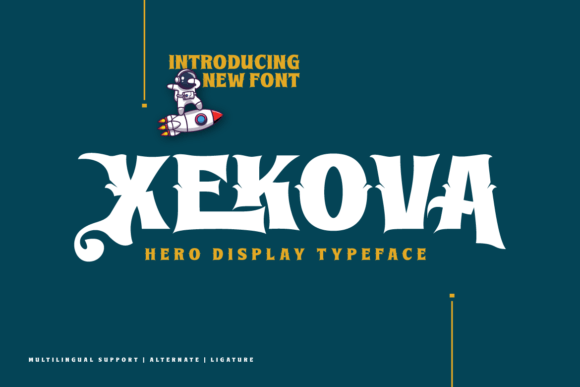
Introducing Xekova Font, the ultimate choice for designers and creatives who want to make a bold statement! Created by Productype, Xekova is a modern and sophisticated display font that combines artistic flair with elegance.
With its unique and captivating design, Xekova is the perfect choice for designers who want to add a touch of creativity and personality to their projects. Whether you're creating a film, designing a magazine, crafting a poster, or designing a logo, Xekova will take your work to the next level.
But Xekova isn't just a pretty font - it's also incredibly versatile and user-friendly. Thanks to its PUA encoding, you can easily access all the glyphs and swashes you need to make your designs truly stand out. And with its fast and clean lines, Xekova is the perfect choice for anyone looking to add a touch of speed and energy to their work.